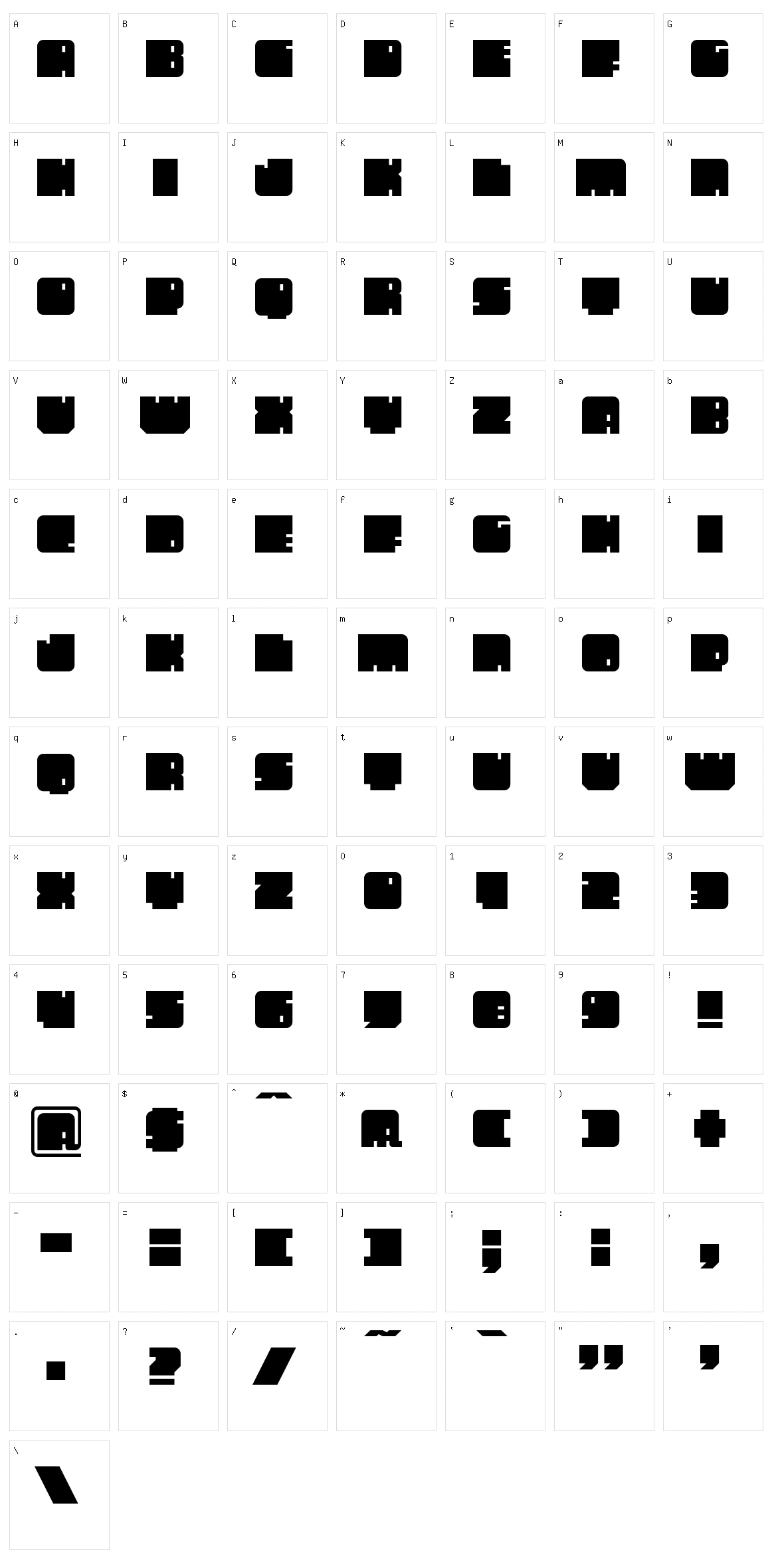
Mastodonte
MASTODONTE is a very fat font, inspired by elephants. Use it for anything, headlines, flyers, blog banners, etc. For the elephant symbol, simply hit the asterisk !